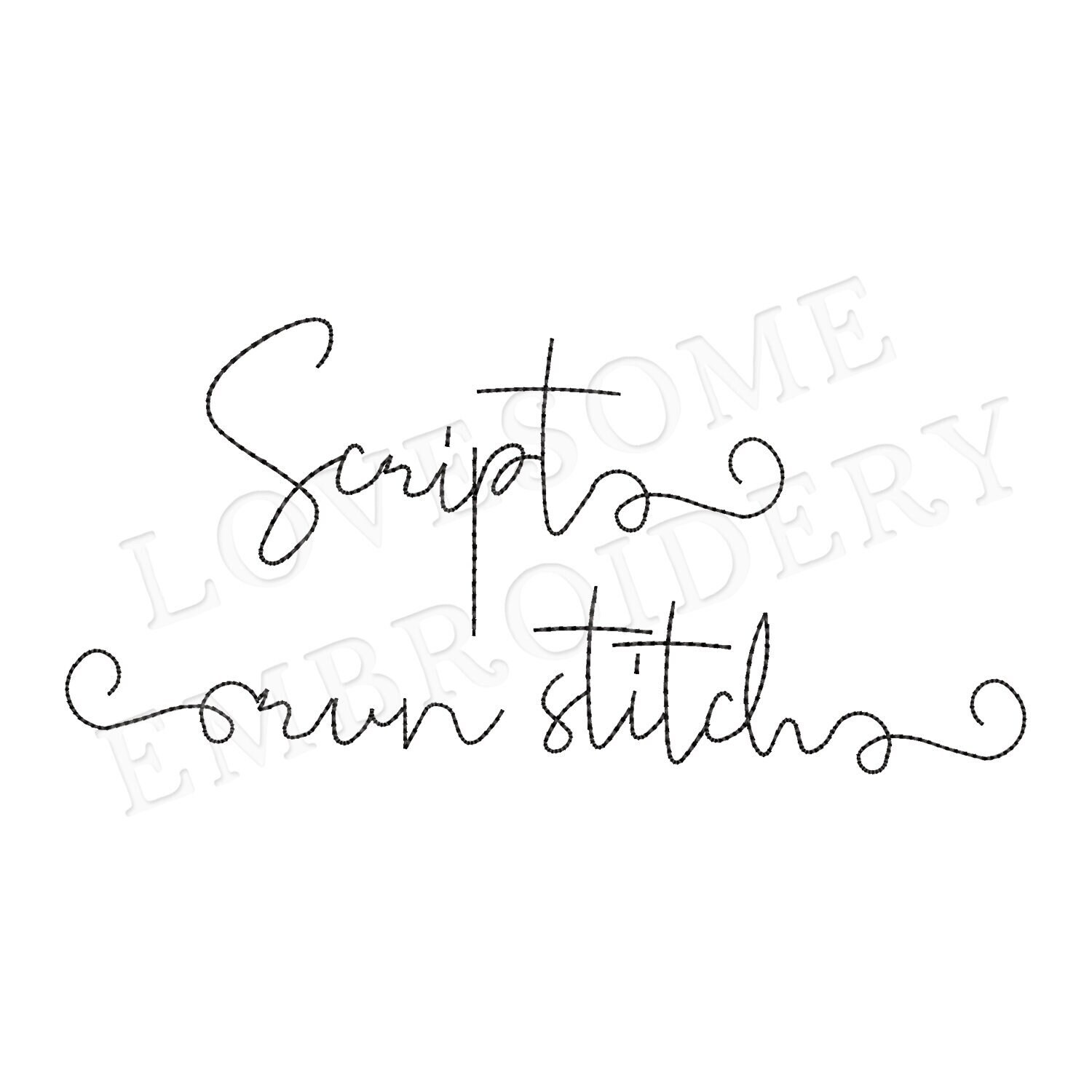
Script Bean Stitch 2inch Font A-Z, Cursive Run Stitch Font with Swashes, Machine Embroidery Digital Download | Lovesome Embroidery
This listing features a machine cursive bean stitch embroidery font set which includes embroidery files of 26 uppercase and 26 lowercase letters in 1inch size and also swash letters in run stitch for the begin and end of the words. (For the whole set, pls see the listing images.)